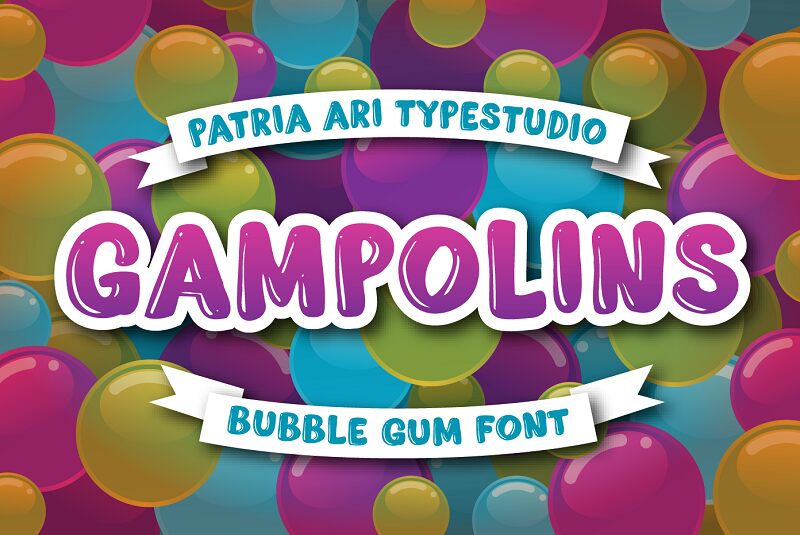
Gampolins font designed by Patria Ari Typestudio is a bold font with a cartoonish style and aesthetic. Its fun characters are rounded, thick, and bubbly, which makes it an eye-catching option for all your different design projects. This free display font presents an unusual, curvy look that can fit into many design styles and share a cheerful tone.
Choose Gampolins to have fun designing invitations for birthday parties or posters for concerts and theatre events. It can also be used in greeting cards, brochures, magazines, social media posts, video games graphics or even animating TV shows.